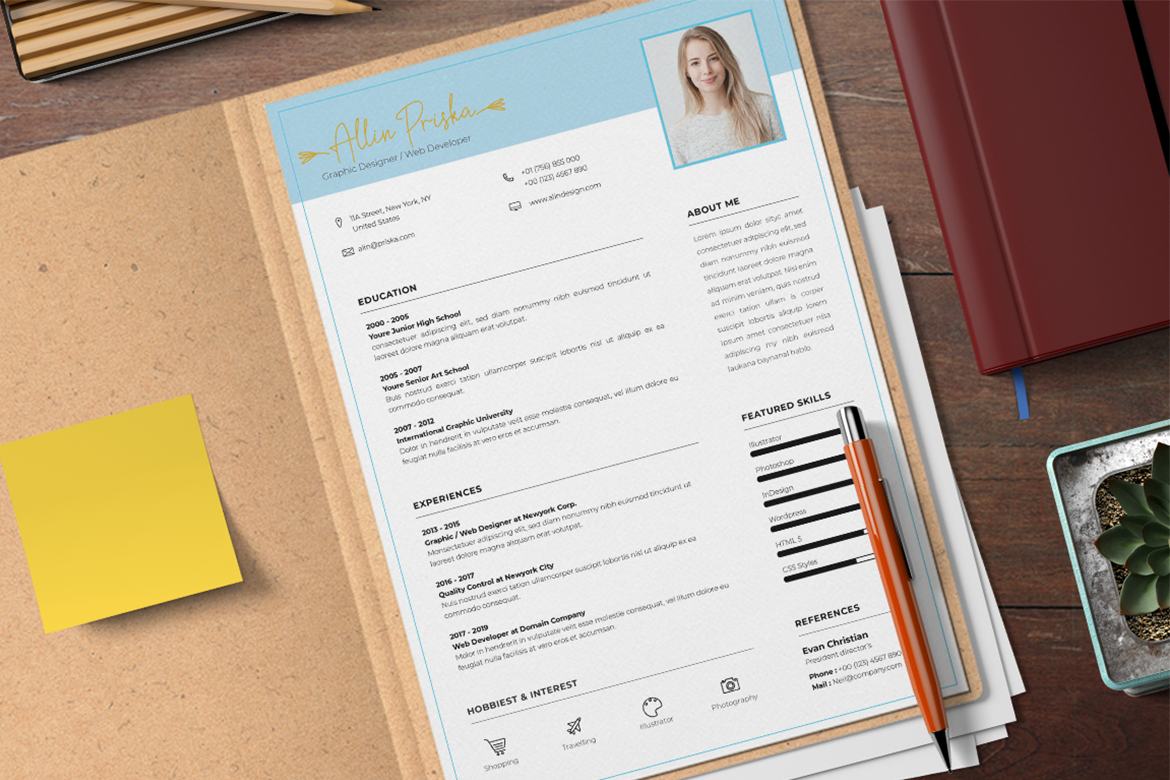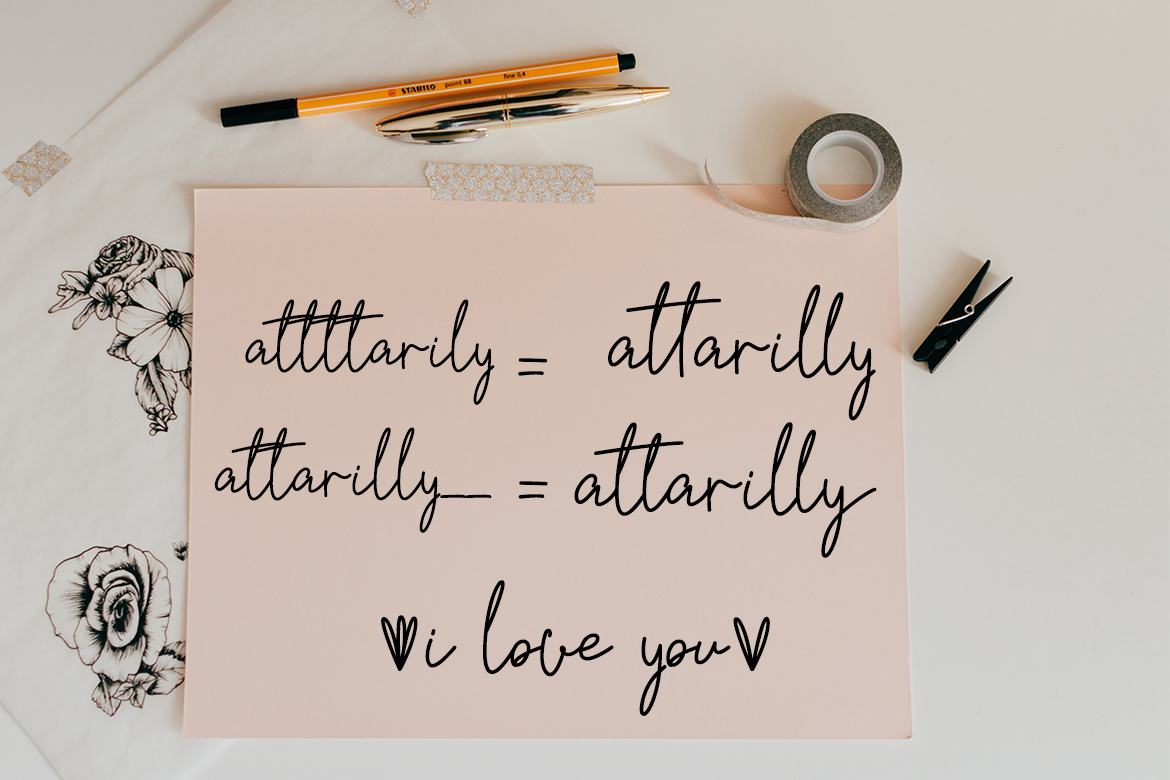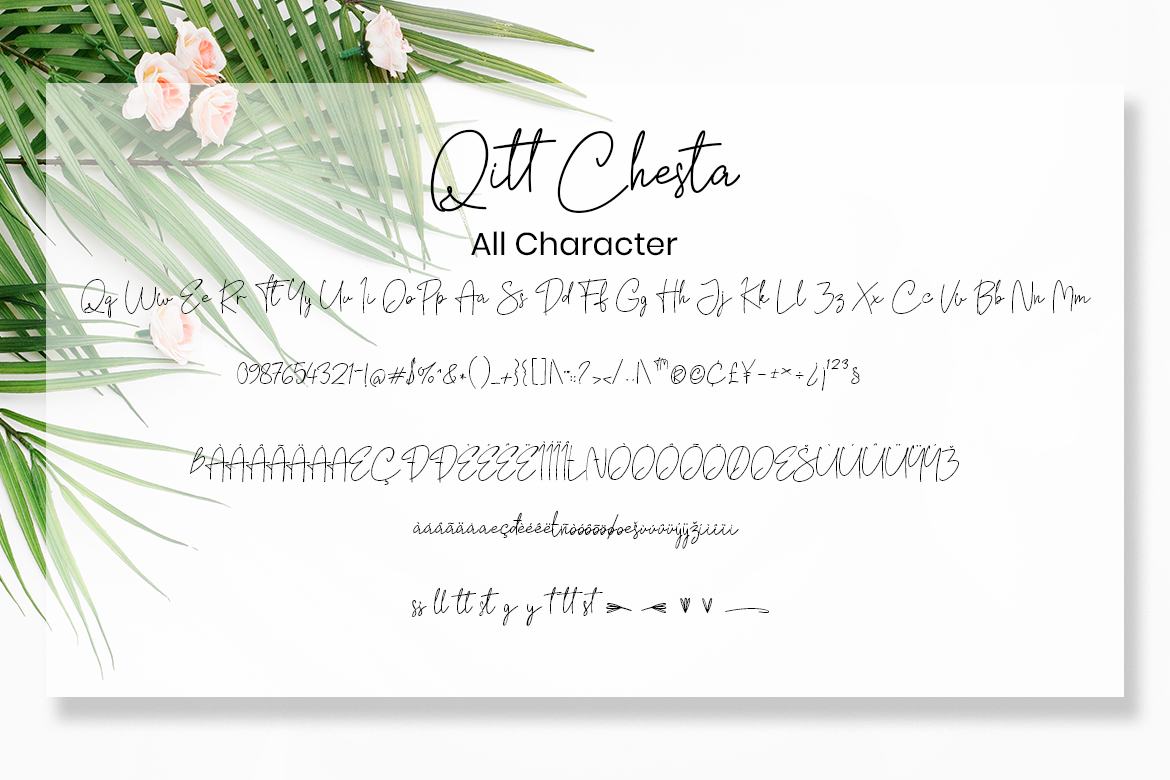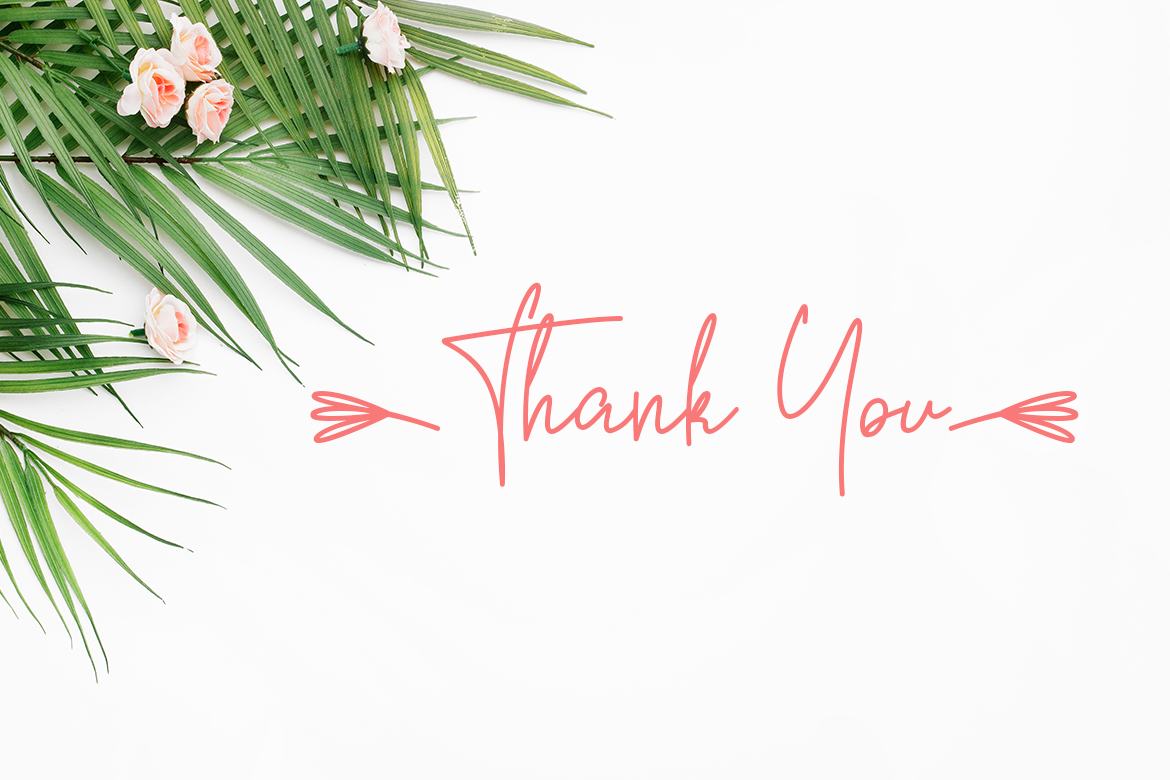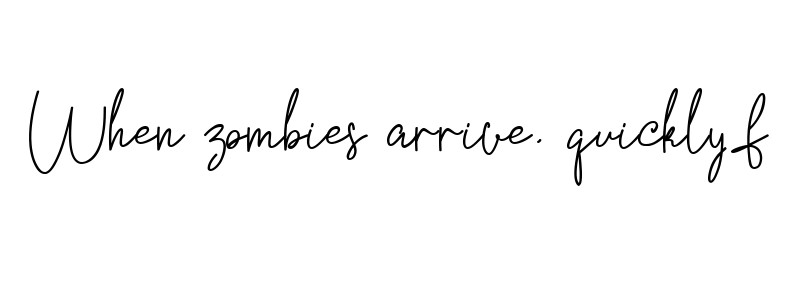
Qitt Chesta - Free Script Font
Qitt Chesta is monoline script font which natural movement and elegant for beautiful style. is perfect for branding projects, logo, wedding designs, social media posts, advertisements, product packaging, product designs, label, photography, watermark, invitation, stationery and any projects that need handwriting taste.